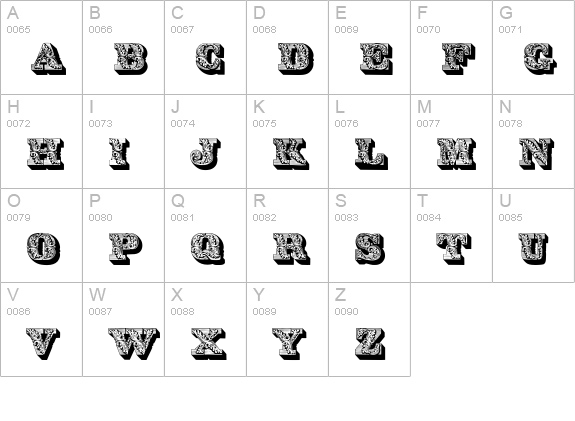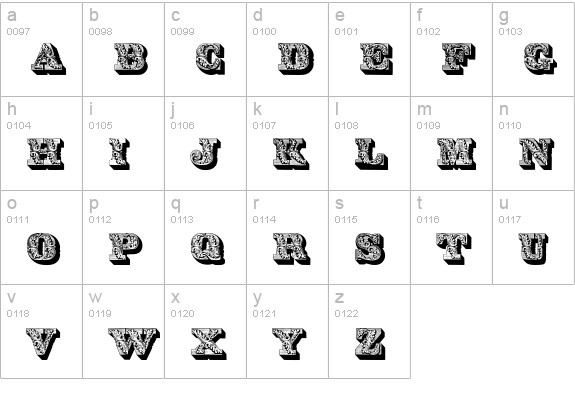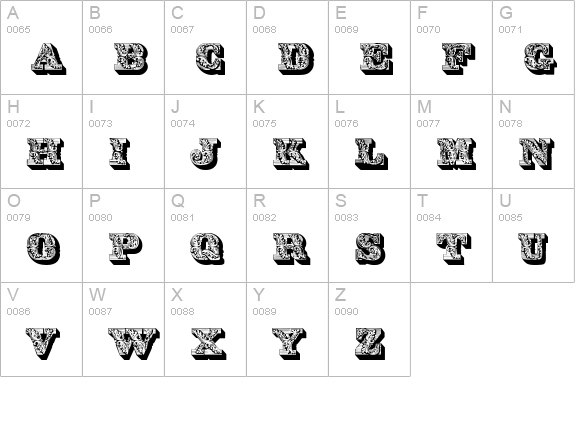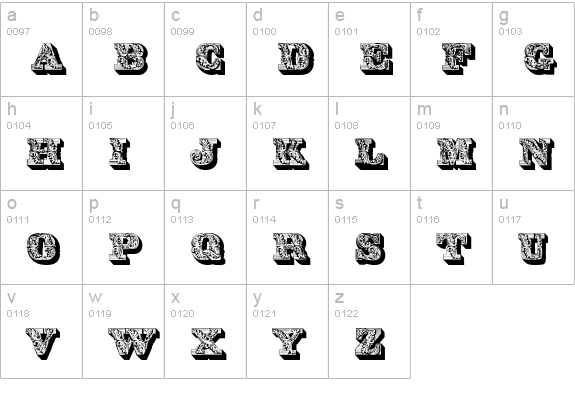
Lettres ombrees ornees Font Details
Lettres ombrees ornees font is a stunning display font that exudes elegance and sophistication. With its intricate shadowed design and ornate detailing, this font is perfect for adding a touch of refinement to any project. Whether you're designing a wedding invitation, creating a logo, or crafting a luxurious branding package, Lettres ombrees ornees font will effortlessly elevate your designs to new heights. What makes Lettres ombrees ornees font even more special is that it is freely available to download at FontsMarket.com. This means that you can enjoy the beauty and versatility of this exquisite font without spending a penny. With just a few clicks, you can access this font and unlock a world of creative possibilities. The unique blend of shadowed letters and decorative elements in Lettres ombrees ornees font creates a captivating visual impact that is sure to leave a lasting impression. Each letter is carefully crafted with precision and attention to detail, resulting in a cohesive and visually appealing typeface that commands attention. Whether you're looking to create stunning headlines, eye-catching posters, or elegant branding materials, Lettres ombrees ornees font is the perfect choice. Its versatility allows it to effortlessly adapt to various design styles and themes, making it a valuable asset for both professional designers and hobbyists alike. In addition to its aesthetic appeal, Lettres ombrees ornees font also offers excellent legibility, ensuring that your message is easily conveyed to your audience. The well-defined letterforms and balanced spacing make reading a breeze, while the ornate decorative elements add a touch of sophistication and charm. Don't miss the opportunity to enhance your designs with the beauty and versatility of Lettres ombrees ornees font. Visit FontsMarket.com today to freely download this exceptional font and unlock a world of creative possibilities.